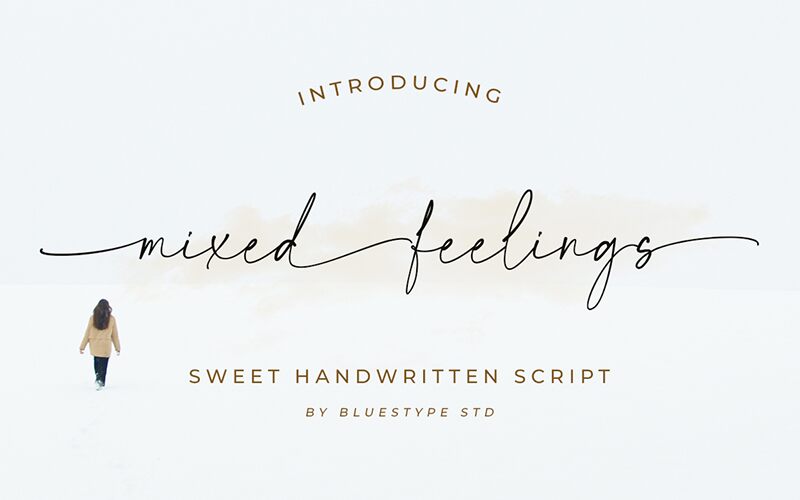
Mixed Feelings is a light signature handwritten font with a flowing design by Bluestype Studio that supports cursive and flowing writing and is perfect for creative purposes.
The dashing font, with its thin and delicate strokes, looks like it was penned using a pen and ink which give it an old, vintage feel with a unique look to it.
Perfect for logotypes, Mixedfeelings can also be used for titles and headlines, quotes, blogs, postcards, signatures and etc.